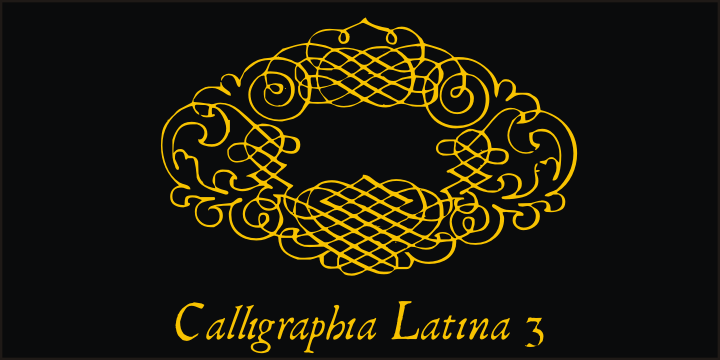
Calligraphia Latina Three
Designed by Paulo W, Calligraphia Latina Three is a monograms and dingbat font family published by Intellecta Design.
One of the most successful ornament fonts is CalligraphiaLatina. It is part of a trend that’s been quite popular lately: messed-up calligraphy.
CalligraphiaLatina is a worldwide best-seller from IntellectaDesign.. Besides the original CalligraphiaLatina, its family of fonts (13 different sets) represents a complete solution of intrincated fleurons and ornaments to use with several styles of artworks.